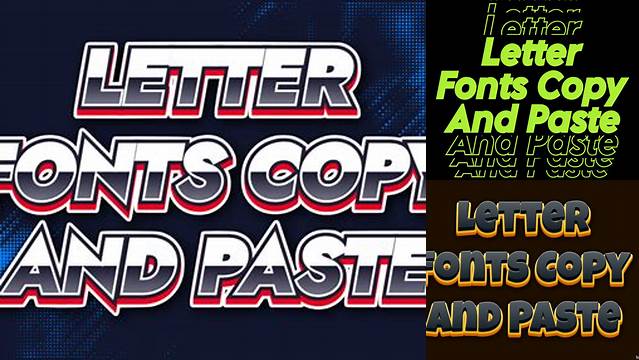
Broad Letter Fonts: Copy & Paste Guide For Stylish Text
Have you ever stumbled upon those cool, bold and broad letter fonts online and wondered how to use them in your own messages or social media posts? Well, you're in the right place! In this guide, we're going to dive into the world of broad letter fonts, how you can easily copy and paste them, and why they're such a fun way to spice up your text. We'll explore various online tools and methods that allow you to generate these eye-catching fonts, making your content stand out. Whether you're looking to add some flair to your social media presence, create unique headings for your blog, or simply want to experiment with different text styles, this article will provide you with everything you need to know. So, let's get started and unleash the power of broad letter fonts!
Understanding Broad Letter Fonts
So, what exactly are broad letter fonts? These aren't your standard Times New Roman or Arial! Instead, they're special character sets that appear wider and bolder than regular text. Think of them as the pumped-up versions of ordinary letters. They grab attention, make a statement, and can add a touch of personality to your digital communications. The beauty of broad letter fonts lies in their ability to transform simple text into something visually striking. They're perfect for headlines, social media posts, or anywhere you want your message to pop. But how do they work? Well, these fonts often utilize Unicode characters, which are a vast library of symbols and letters beyond the standard alphabet. This allows for the creation of unique text styles that you can easily copy and paste across different platforms.
The history of broad letter fonts is intertwined with the evolution of digital communication and the desire for visual expression online. As the internet grew, so did the need for ways to stand out in the crowded digital space. Broad letter fonts emerged as a creative solution, offering a simple yet effective way to make text more noticeable and engaging. These fonts have become particularly popular on social media, where users are constantly seeking ways to make their posts more visually appealing. From Instagram captions to Twitter bios, broad letter fonts add a unique touch that helps messages cut through the noise. The accessibility of these fonts, thanks to online generators and Unicode support, has also contributed to their widespread use. This means anyone, regardless of their technical skills, can easily incorporate these fonts into their online presence.
The appeal of broad letter fonts also stems from their versatility. They can be used in various contexts, from casual social media updates to more professional settings like website headings or marketing materials. The bold nature of these fonts makes them ideal for emphasizing key messages or creating a strong visual impact. For example, a broad letter font can make a headline stand out on a blog post, drawing readers in and encouraging them to explore the content further. Similarly, on social media, a well-placed broad letter font can make a profile or post more memorable. The fonts also offer a fun way to experiment with typography and add a playful element to your text. Whether you're announcing a sale, sharing an update, or simply expressing yourself, broad letter fonts provide a simple yet powerful tool for enhancing your message.
Finding and Generating Broad Letter Fonts
Okay, so now that we know what broad letter fonts are and why they're cool, let's talk about how to actually get your hands on them. The good news is, you don't need to be a tech wizard or download any fancy software. There are tons of awesome online tools that make generating these fonts super easy. Think of these tools as your personal font factories, churning out bold and beautiful text in just a few clicks. These font generators work by converting your regular text into special Unicode characters that mimic the appearance of broad letter fonts. This means you're not actually changing the font itself, but rather using characters that look like a different font. It's a clever trick that allows you to use these styles across platforms that might not support custom fonts.
One of the most common ways to find and generate broad letter fonts is through online font generators. These websites typically have a simple interface where you can type your text into a box, and the tool will instantly generate various styles of broad fonts. You can then copy and paste these fonts into your social media posts, documents, or anywhere else you want to use them. Some popular font generator websites include LingoJam, Cool Fancy Text Generator, and many others that you can easily find with a quick Google search. These tools often offer a range of styles, from basic broad letter fonts to more elaborate and decorative options. This allows you to experiment with different looks and find the perfect font to match your message and style. The ease of use and variety of options make these generators an excellent resource for anyone looking to add a unique touch to their text.
Another approach to generating broad letter fonts involves using Unicode character maps or specialized apps. Unicode character maps provide access to a vast library of characters, including those that resemble broad letter fonts. While this method requires a bit more effort than using a font generator, it offers greater control over the specific characters you use. You can pick and choose individual characters to create custom text styles that perfectly suit your needs. Specialized apps, on the other hand, often provide a more user-friendly interface for browsing and selecting Unicode characters. These apps may also offer additional features, such as the ability to save your favorite fonts or create custom font combinations. Whether you prefer the simplicity of online generators or the precision of Unicode character maps and apps, there are plenty of ways to generate broad letter fonts and add a unique flair to your text.
Copying and Pasting Broad Letter Fonts
Alright, you've found your perfect broad letter font, now what? The best part is, using these fonts is as simple as copy and paste! Because these fonts are based on Unicode characters, they can be used pretty much anywhere you can type text. This means you can jazz up your social media bios, create eye-catching captions, write bold headlines for your blog, or even add some flair to your emails. The process is straightforward: just copy the generated text from the online tool or character map, and then paste it into your desired application or platform. It's like magic, but with letters!
The beauty of the copy-and-paste method lies in its simplicity and versatility. You don't need to install any special software or plugins to use broad letter fonts. As long as the platform you're using supports Unicode characters, you can paste your bold text and it will display correctly. This makes these fonts incredibly accessible and convenient for a wide range of users. Whether you're using a desktop computer, a smartphone, or a tablet, the process remains the same. This cross-platform compatibility is a significant advantage, as it allows you to maintain a consistent look and feel across all your digital communications. Whether you're crafting a tweet, updating your Facebook status, or designing a poster, broad letter fonts can be seamlessly integrated into your workflow.
However, there are a few things to keep in mind when copying and pasting broad letter fonts. While most platforms support Unicode, there may be occasional compatibility issues. Some older systems or applications might not display these fonts correctly, resulting in the text appearing as squares or question marks. To avoid this, it's always a good idea to test your broad letter fonts on different devices and platforms to ensure they display as intended. Another consideration is the readability of your text. While broad letter fonts are great for adding emphasis and visual interest, they can be harder to read in large blocks of text. Therefore, it's best to use them sparingly, focusing on headlines, captions, or other short phrases where they can have the most impact. By understanding these limitations and using broad letter fonts judiciously, you can effectively enhance your message and make it stand out in a sea of ordinary text.
So there you have it, guys! Everything you need to know about broad letter fonts, from finding and generating them to copying and pasting them like a pro. These fonts are a fantastic way to add some personality and pizzazz to your digital communications, whether you're sprucing up your social media profiles, crafting eye-catching headlines for your blog, or simply want to make your text stand out from the crowd. Just remember to use them wisely, keeping readability and consistency in mind. With a little practice and a dash of creativity, you'll be using broad letter fonts to create bold and beautiful content that grabs attention and makes a lasting impression. So go ahead, experiment, have fun, and let your text do the talking!